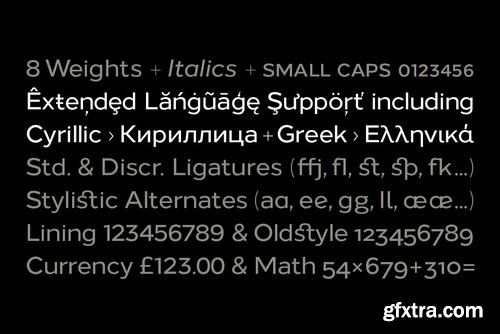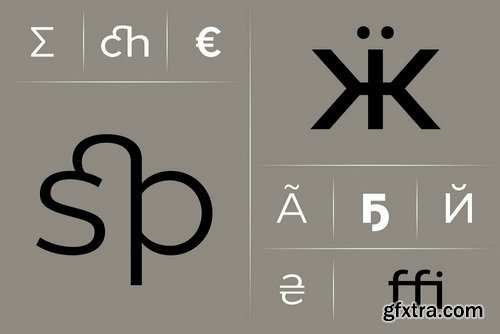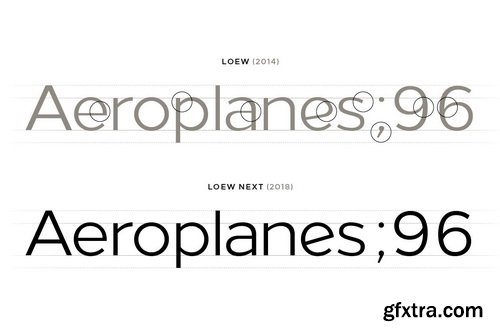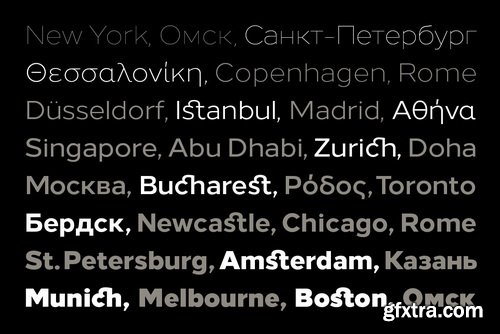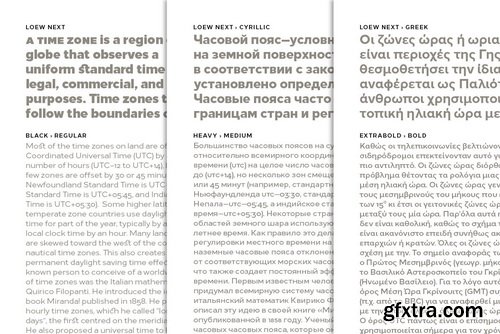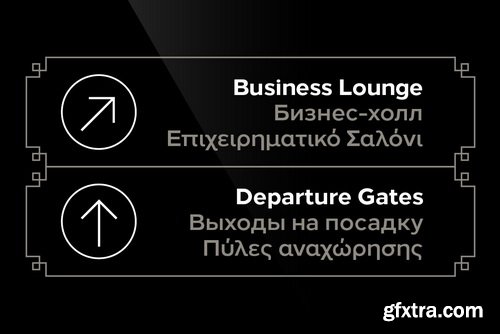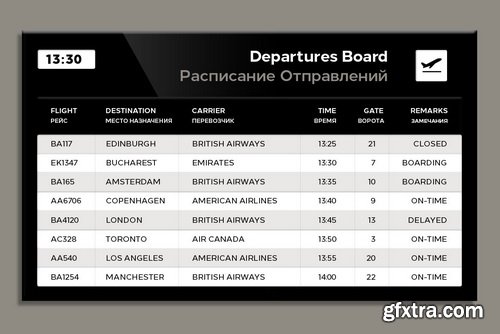
罗威Next字体家族
Loew Next is the modern, honest and straightforward go-to sans serif type family aimed at a global user. Painstakingly reworked from the original design (Loew) to further enhance the consistency of detail between individual weights and improve its compatibility to support non-latin script languages. Details include over 800 characters with italics, alternative lowercase a, e, g and l. Seven variations of numerals, small caps with accents, Opentype features inferiors, superiors, fractions and language support covering Cyrillic, Greek, Western, South and Central Europe.